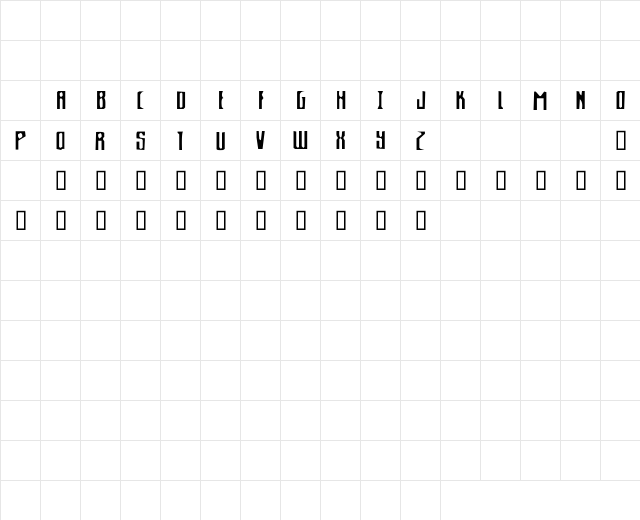
Cheap-Ass Phaser Regular Free Font
Cheap-Ass Phaser Regular
Complete Cheap-Ass Phaser Regular glyph index. Displaying only characters natively supported by Cheap-Ass Phaser Regular font.
Design Context for Cheap-Ass Phaser
Cheap-Ass Phaser is a composed and adaptable typeface that performs quietly and consistently across a wide range of design contexts.